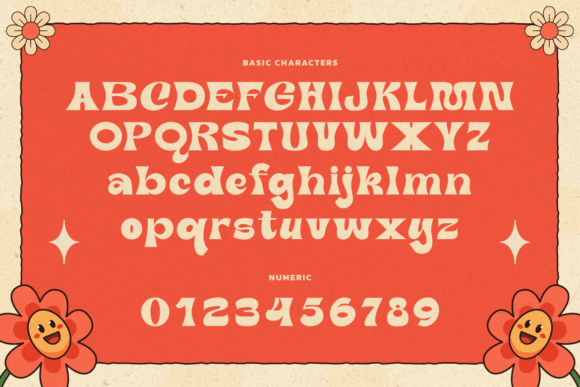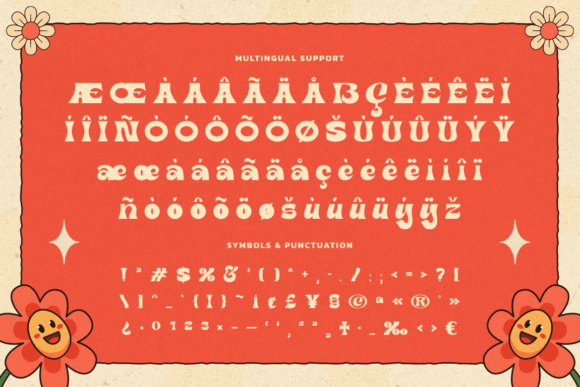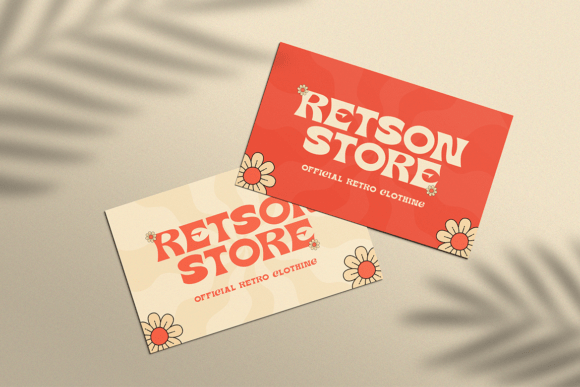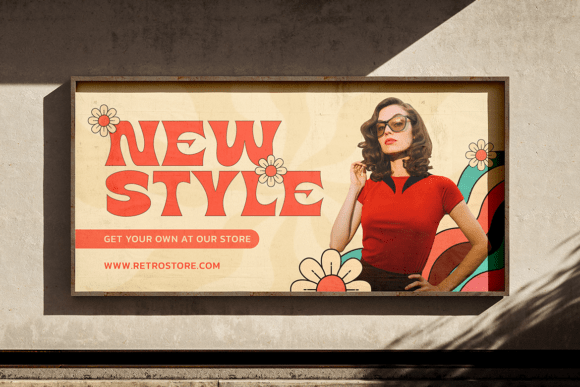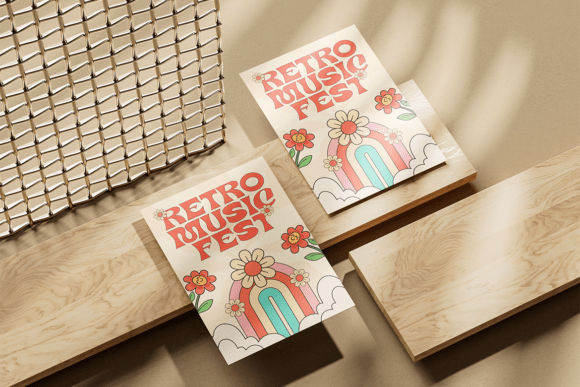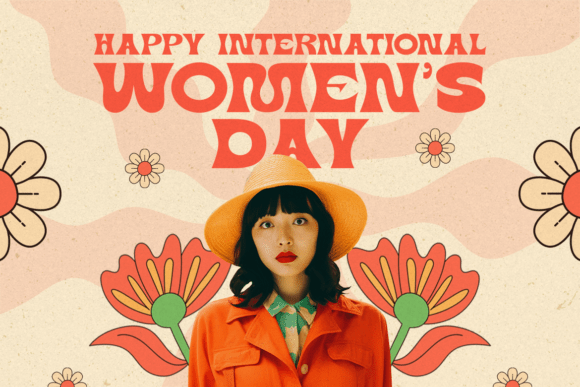
Introduction to Qruzee Font Font
Fonts play a crucial role in design, and the Qruzee Font font is a typeface that brings both character and versatility to any project. Whether you’re working on a branding project, a website, or a print design, the Qruzee Font font offers a unique style that can elevate your work.
Qruzee is a groovy retro display font designed with bold curves and playful letterforms inspired by vintage visual styles.
The distinctive shapes create a strong and expressive personality, making it suitable for eye-catching typography This typeface works well for posters, branding, packaging, merchandise, and creative design projects.
The Qruzee Font font is more than just a typeface – it’s a design tool that helps you communicate your message with style and clarity. Its unique character set and versatile design make it suitable for a wide range of applications, from elegant invitations to bold headlines.
With its carefully crafted letterforms and balanced proportions, the Qruzee Font font ensures readability and visual appeal across all mediums.
The Qruzee Font font stands out with its unique design, exceptional readability, and versatility across various design applications.